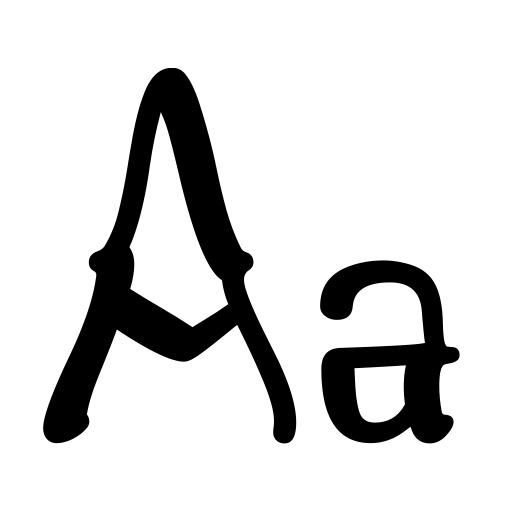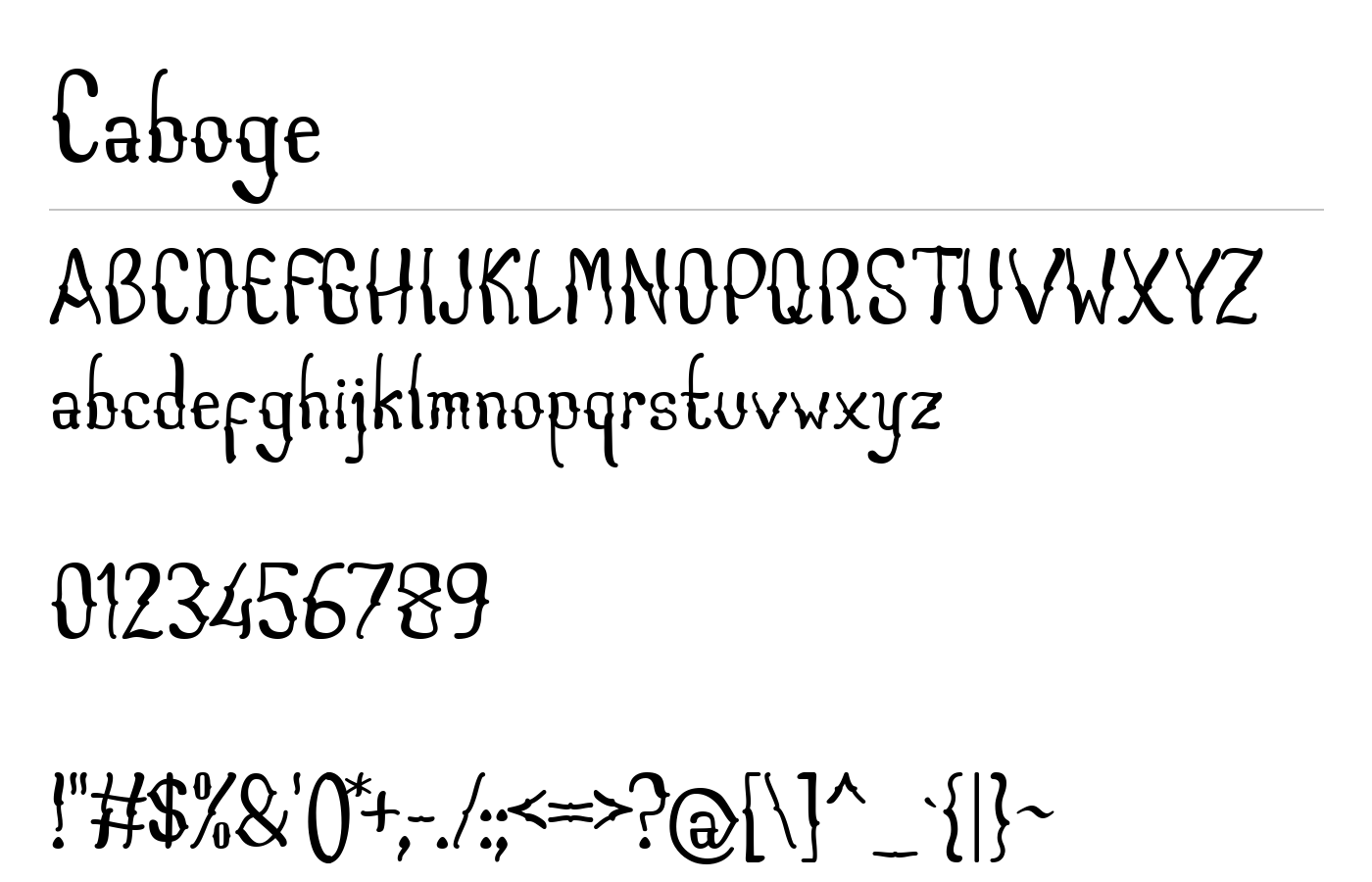
Caboge is a quirky, decorative serif font with a hand-drawn, whimsical style that combines irregular strokes and playful curves. Its narrow width and uneven letterforms give it a distinctive, vintage feel perfect for creative projects seeking a unique, artistic touch. This font works well in headlines, logos, and packaging where character and charm are key to making a memorable impression.
Caboge Font
About Caboge Font